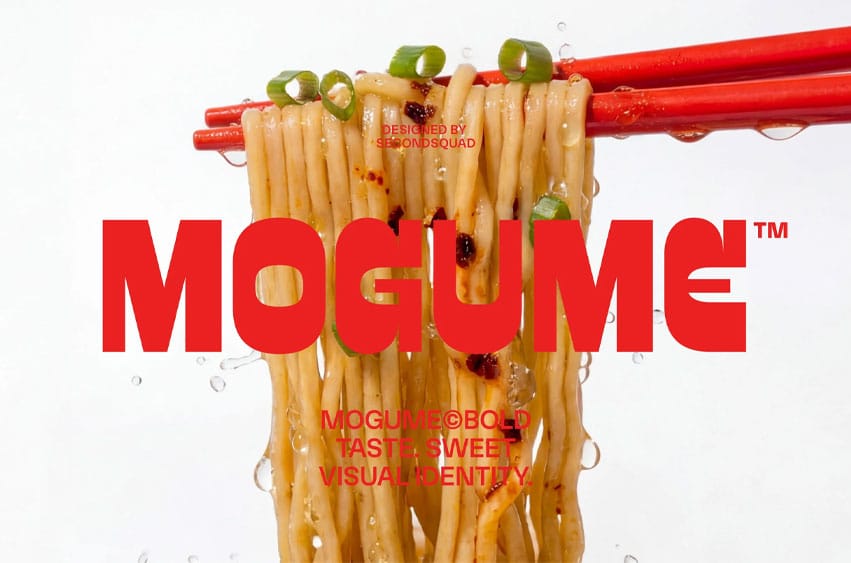
Mogume Font is a bold food font made to turn every menu, logo, and packaging design into something instantly crave-worthy. Inspired by hot noodles, flavorful dishes, and modern street food branding, this font brings a strong, delicious, and energetic look that fits perfectly for ramen shops, noodle bars, restaurants, cafe menus, burger brands, pizza promos, bakery packaging, candy labels, coffee products, ice chocolate drinks, and creative food logo designs.
With its chunky letterforms and mouth-watering visual impact, Mogume helps your food brand stand out with confidence and appetite appeal. Whether used on menu boards, takeout boxes, sauce packaging, cooking content, kitchen branding, posters, or social media promotions, this font is designed to make customers look twice, feel hungry, and remember your brand.